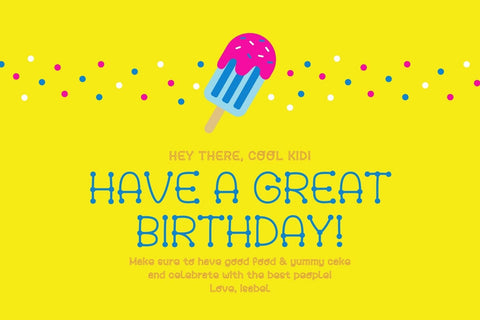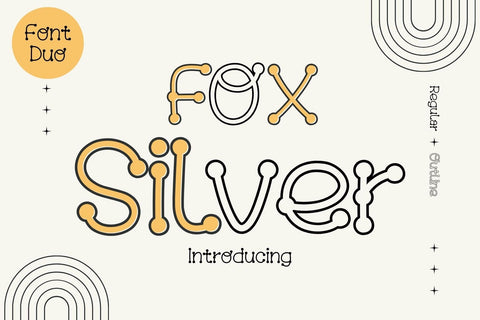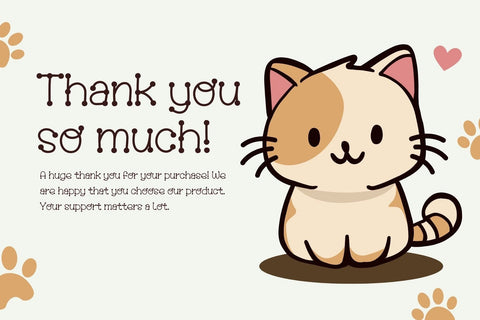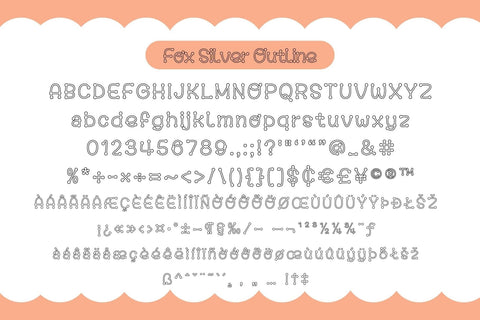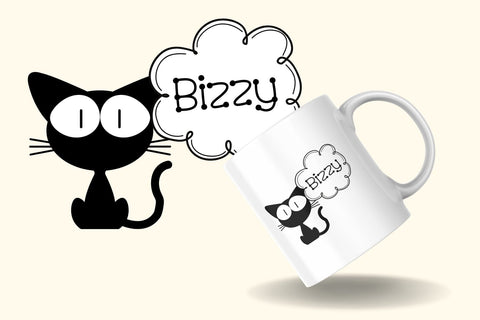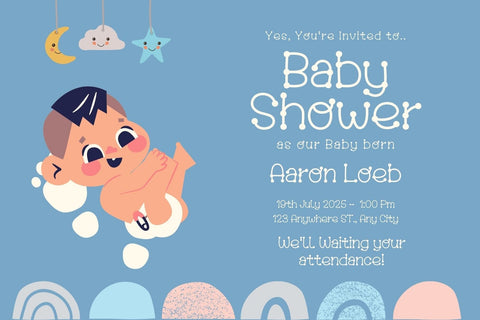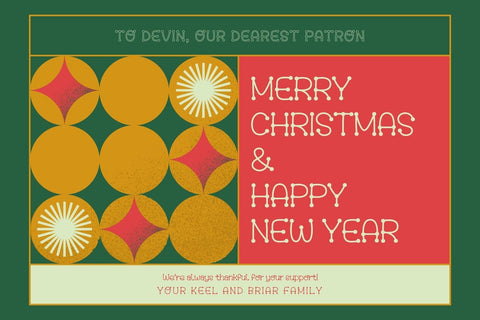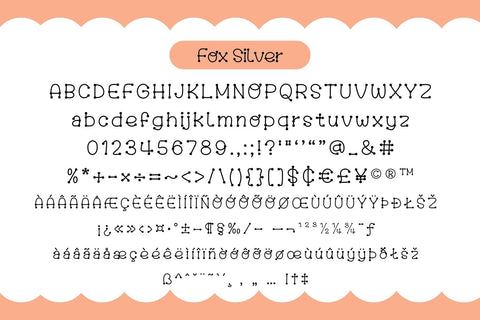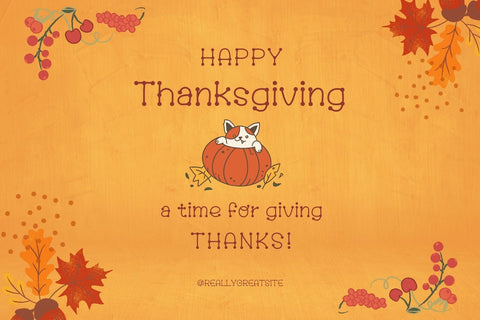
Fox Silver Font Duo
Fox Silver is a cool, fun, and Decorative Handwritten font Duo. No matter the topic, this font will be an incredible asset to your fonts’ library, as it has the potential to elevate any creation. Its cheerful vibe is suitable for kid-friendly designs, posters, wall art, stickers, Halloween, or festival valentines, Mother’s Day, and more!